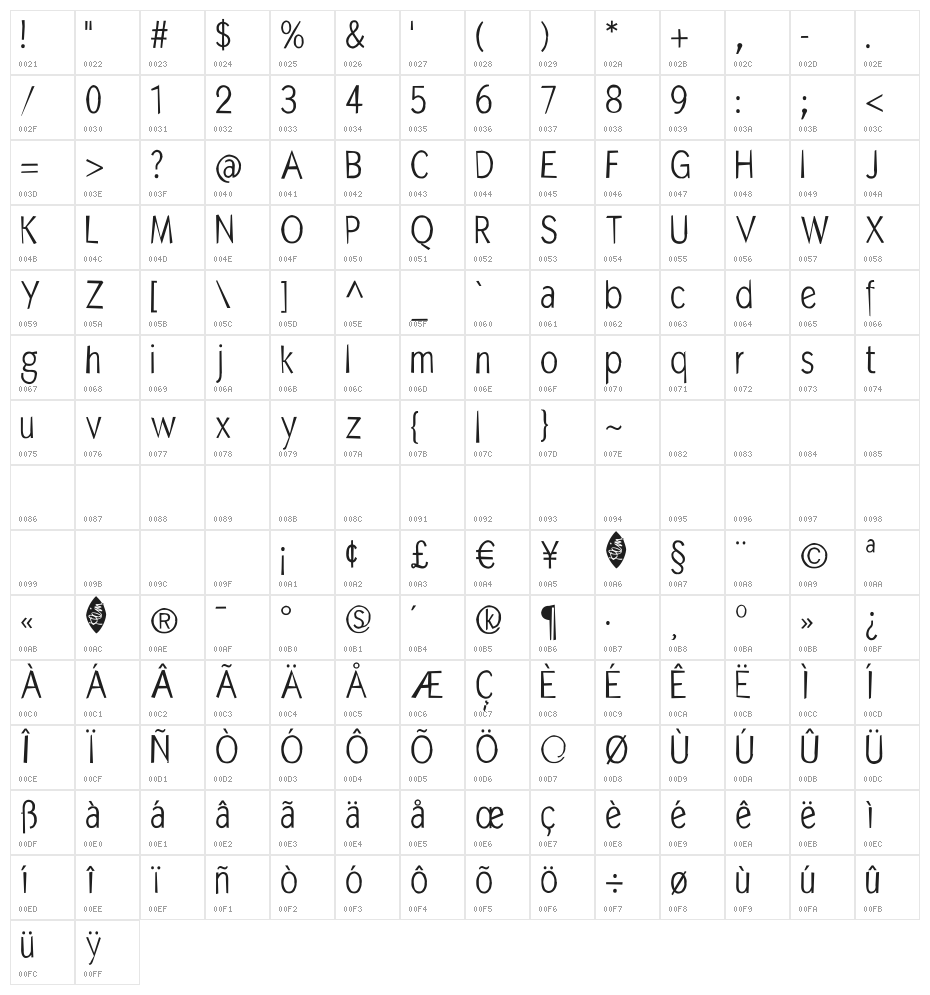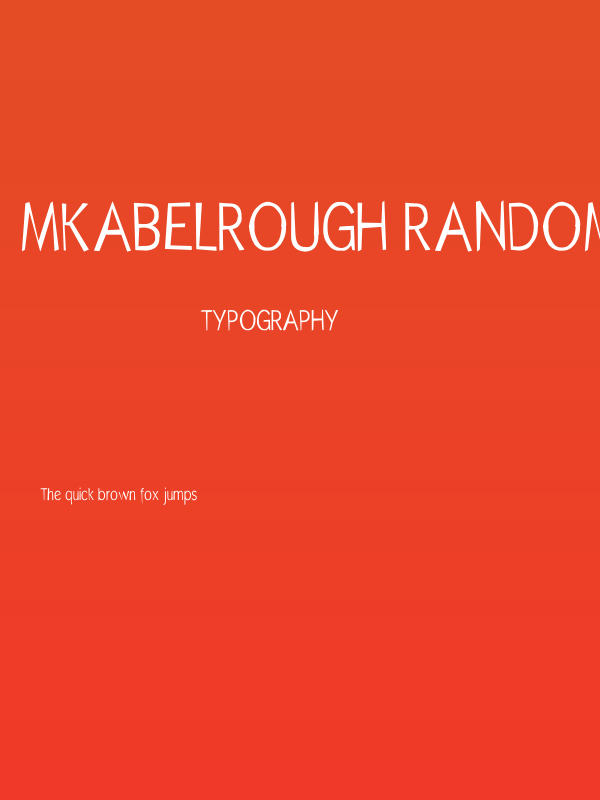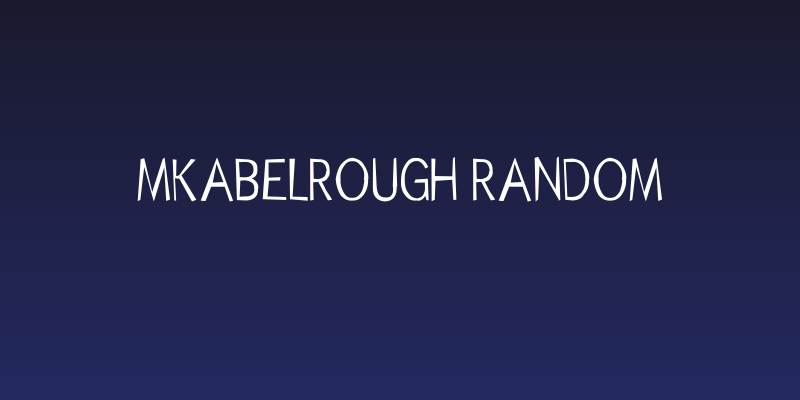
MKAbelRough random Font
MKAbelRough random Description
This font features a clean and modern sans-serif style with a slightly rough texture that adds a unique character to its appearance. The uppercase letters are bold and prominent, while the lowercase letters maintain a consistent flow with rounded edges. The numerals are clear and easy to read, making them suitable for various applications. Special characters are well-defined, ensuring versatility in design projects. The overall look is contemporary, with a touch of ruggedness that makes it stand out.